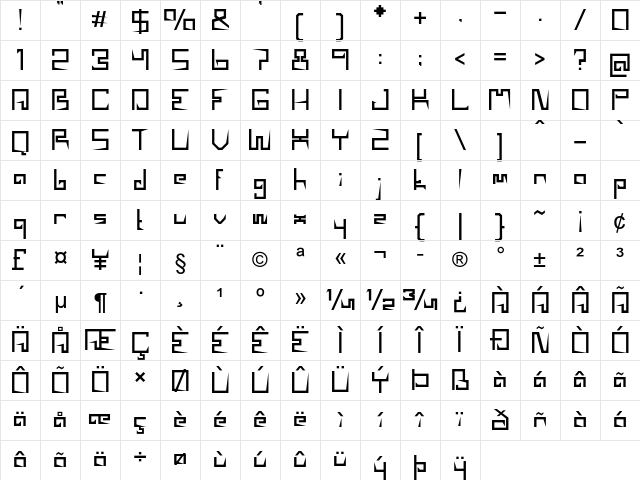
Turin Regular Free Font
Turin Regular
Turin Family
Turin Regular
Design Context for Turin
Turin is a composed and adaptable typeface that performs quietly and consistently across a wide range of design contexts.